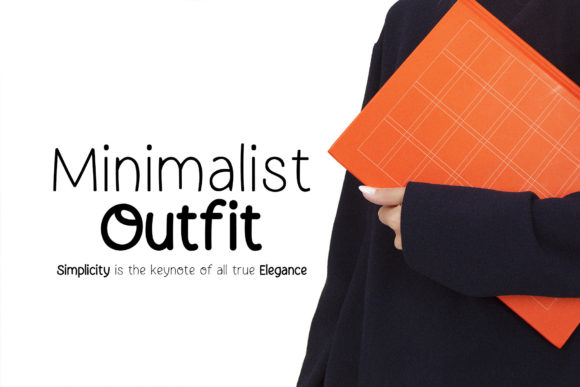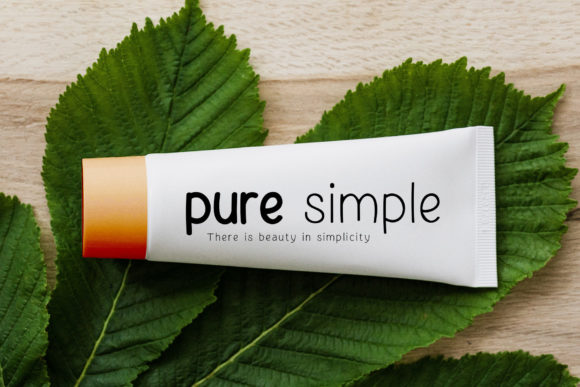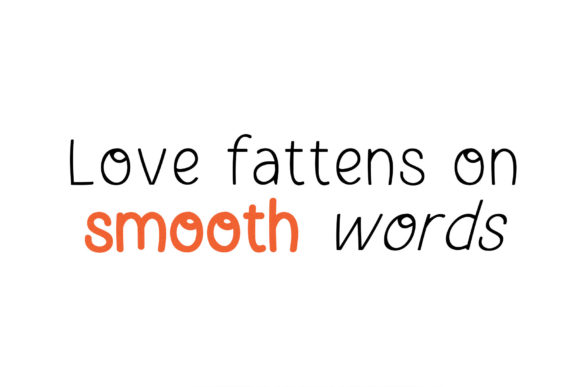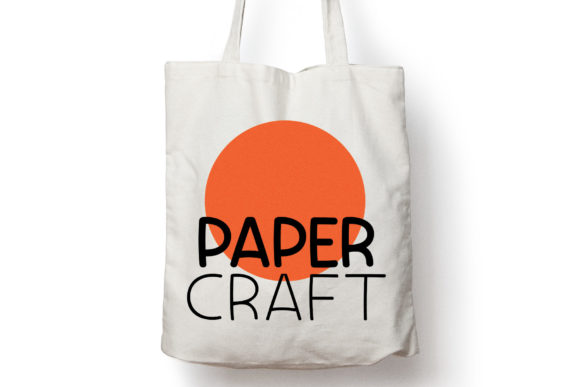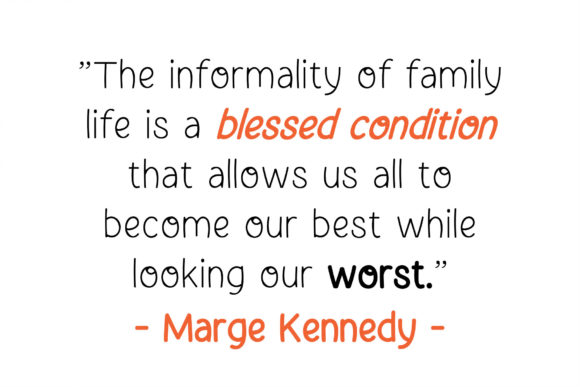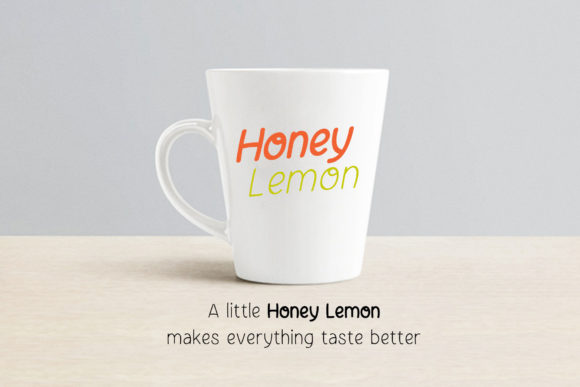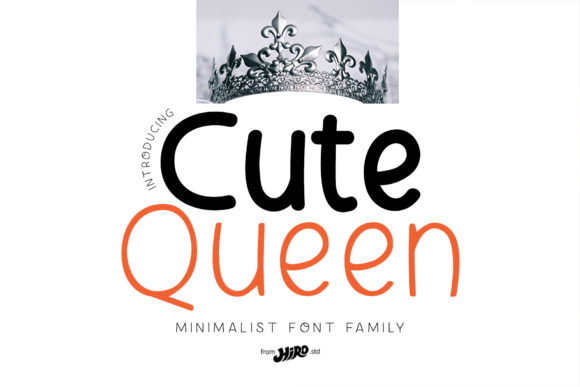
Cute Queen Font: Elevate Your Designs with a Touch of Elegance
In the world of typography, a font can make or break a design. It’s the perfect blend of style, elegance, and personality that can elevate a project from ordinary to extraordinary. If you’re a designer, crafter, or simply a creative enthusiast, you’re in luck! Introducing the Cute Queen Font, a thin-lettered and minimalist handwritten font that’s about to take your designs to the next level.
What is Cute Queen Font?
Cute Queen is a beautiful, delicate font that’s characterized by its thin letters and minimalist aesthetic. This stunning handwritten font is perfect for those who appreciate simplicity and elegance in their designs. Whether you’re working on a branding project, a craft project, or simply want to add a personal touch to your digital creations, Cute Queen Font is an excellent choice.
Key Features of Cute Queen Font
• Thin-Lettered: The Cute Queen Font features thin, delicate letters that exude elegance and sophistication.
• Minimalist Aesthetic: The font’s minimalist design makes it perfect for modern designs that require a touch of simplicity and refinement.
• Handwritten: The Cute Queen Font has a beautiful, handwritten feel that adds a personal touch to any project.
• Versatile: This font can be used in a wide range of projects, from branding and advertising to crafting and digital art.
Why Choose Cute Queen Font?
So, why should you choose Cute Queen Font for your next project? Here are just a few reasons:
• Adds a Touch of Elegance: The Cute Queen Font adds a touch of elegance and sophistication to any design, making it perfect for projects that require a refined aesthetic.
• Easy to Read: The font’s thin letters and minimalist design make it easy to read, even at small sizes.
• Pairs Well with Other Fonts: The Cute Queen Font pairs well with a wide range of other fonts, making it easy to mix and match with other typography.
• Perfect for Branding: The font’s elegant design makes it perfect for branding projects, such as logos, business cards, and letterheads.
How to Use Cute Queen Font
Using the Cute Queen Font is easy! Here are a few tips to get you started:
• Pair with Bold Fonts: Pair the Cute Queen Font with bold fonts for a striking contrast that adds visual interest to your design.
• Use for Headings: Use the Cute Queen Font for headings and titles to add a touch of elegance and sophistication.
• Add to Digital Projects: Add the Cute Queen Font to your digital projects, such as social media graphics, blog posts, and email newsletters.
• Experiment with Colors: Experiment with different colors and textures to add depth and interest to your design.
In conclusion, the Cute Queen Font is a beautiful, elegant font that’s perfect for designers, crafters, and creative enthusiasts. Its thin letters, minimalist aesthetic, and handwritten feel make it a versatile font that can be used in a wide range of projects. Whether you’re looking to add a touch of elegance to your designs or simply want to try something new, the Cute Queen Font is an excellent choice. So why not give it a try and see how it can elevate your designs to the next level?
Get Creative with Cute Queen Font!
Ready to get creative with the Cute Queen Font? Here are a few ideas to get you started:
• Design a Logo: Use the Cute Queen Font to design a logo for your business or brand.
• Create a Social Media Graphic: Add the Cute Queen Font to your social media graphics for a touch of elegance and sophistication.
• Make a Craft Project: Use the Cute Queen Font to add a personal touch to your craft projects, such as handmade cards and gift tags.
• Design a Website: Use the Cute Queen Font to add a touch of elegance to your website or blog.
Whatever your creative project, the Cute Queen Font is sure to make it stand out. So why not give it a try and see the difference it can make?